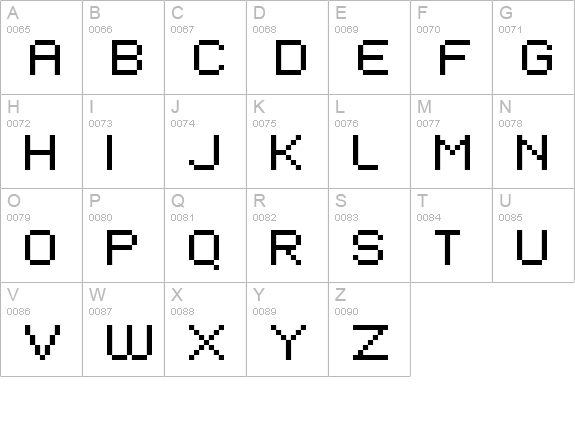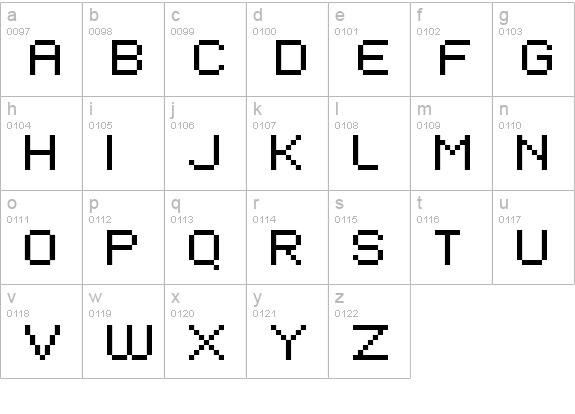
EIVEN MAJOR Pixel Font Details
Introducing EIVEN MAJOR Pixel font, a charming and versatile typeface that brings a delightful touch to any design project. This pixel font is perfect for adding a fun and retro vibe to your creations, whether you're working on digital art, video games, or graphic design. With its clean lines and crisp edges, EIVEN MAJOR Pixel font is sure to stand out and make a statement. The best part? EIVEN MAJOR Pixel font is available for free download at FontsMarket.com. That's right, you can enjoy this fantastic font at no cost and start using it in your projects right away. Don't miss out on this amazing opportunity to enhance your designs with the unique style of EIVEN MAJOR Pixel font. Download it today and let your creativity shine!